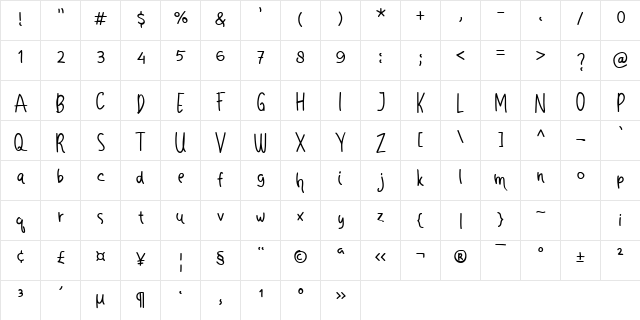
Doctor Vista Regular
| Foundry | Agustian Eko Saputro |
| Designer | Agustian Ganteng |
Design Context for Doctor Vista Typeface
Doctor Vista is a composed and adaptable typeface that performs quietly and consistently across a wide range of design contexts.